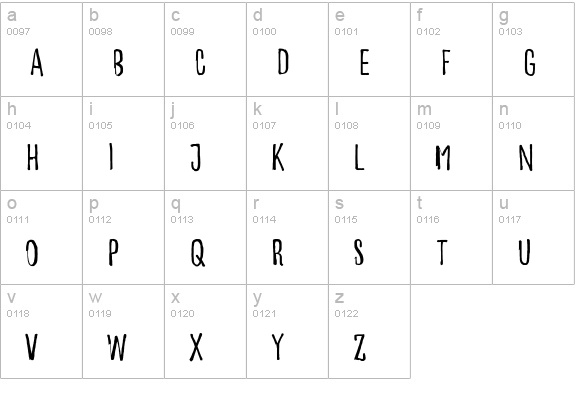
Goodlife Sans Condensed is a distinctive, condensed-width variant in the Goodlife typeface family \xE2\x80\x94 well suited to design and typography projects.
Goodlife Sans Condensed is a modern and versatile typeface that exudes elegance and simplicity. With its clean lines and compact design, this font is perfect for a wide range of projects, from branding to editorial design. The condensed style gives it a sleek and contemporary look that is sure to make a statement. What sets Goodlife Sans Condensed apart is that it is not only stylish and functional, but also free for personal and commercial use. This means that you can enjoy the benefits of this high-quality font without any cost constraints. You can freely download Goodlife Sans Condensed at FontsMarket.com, where it is readily available for your design needs. Whether you're working on a branding project, creating a poster, or designing a website, Goodlife Sans Condensed is a versatile font that will elevate your designs to the next level. Its clean and modern aesthetic makes it a standout choice for any design project, and its availability for free makes it an even more appealing option.